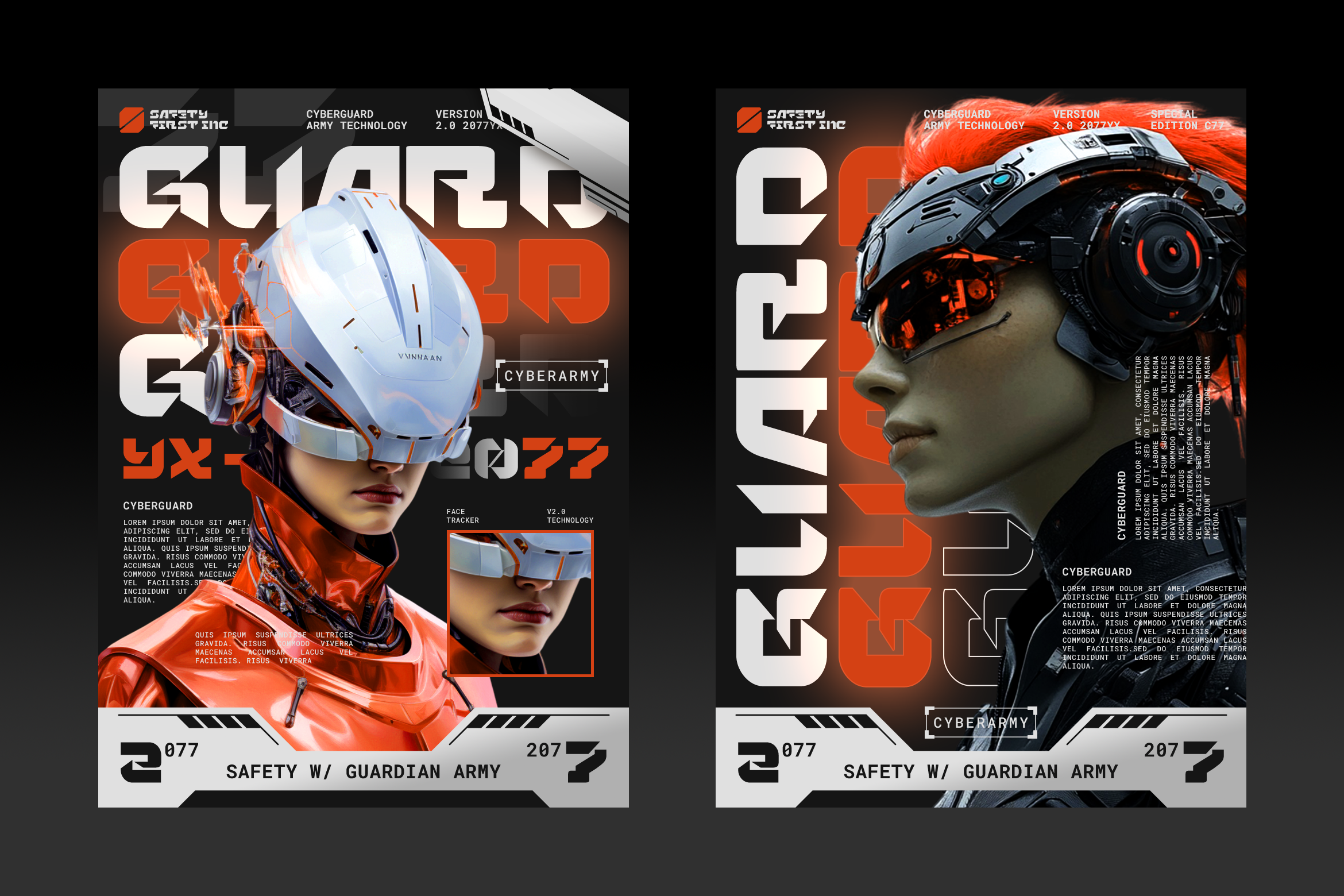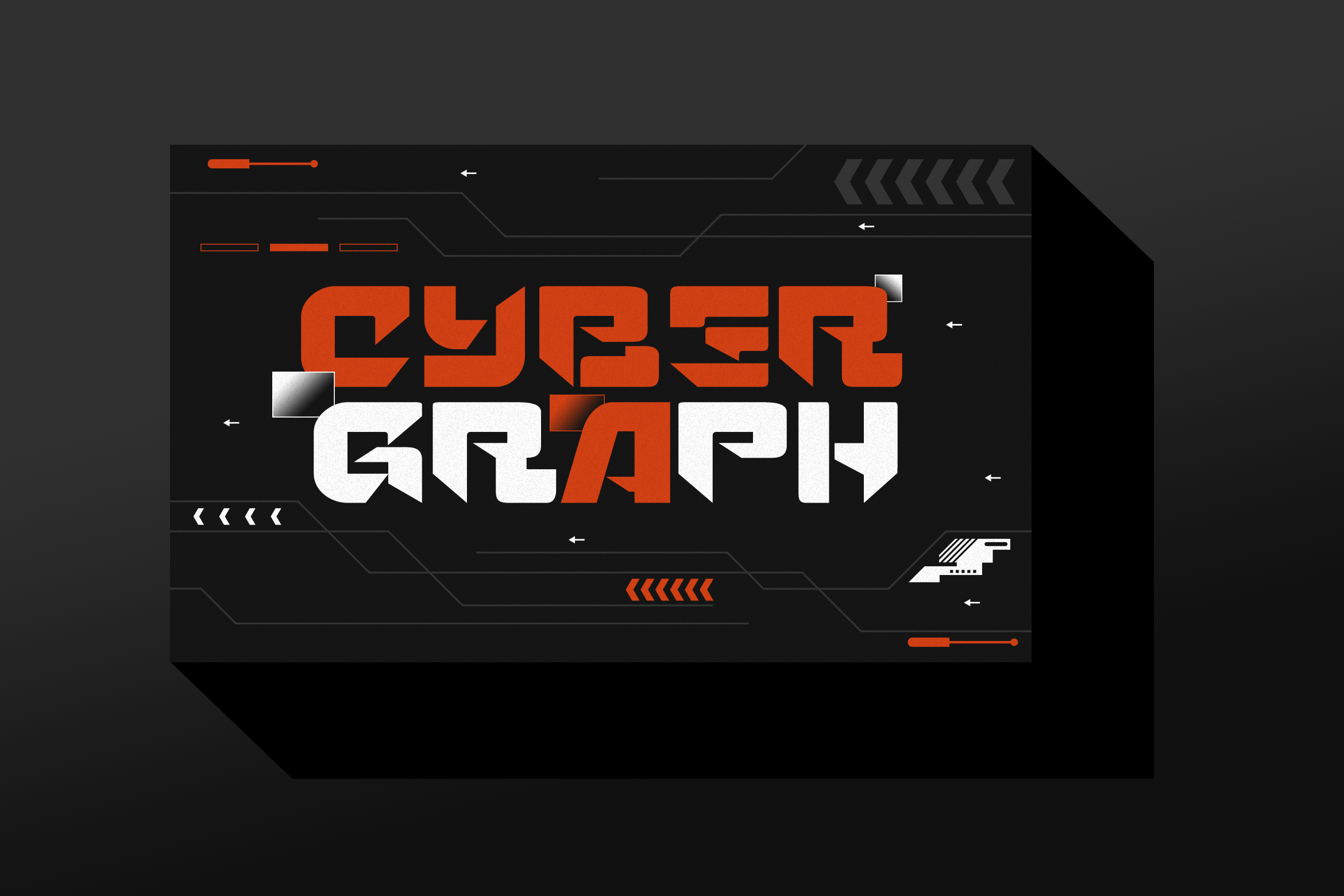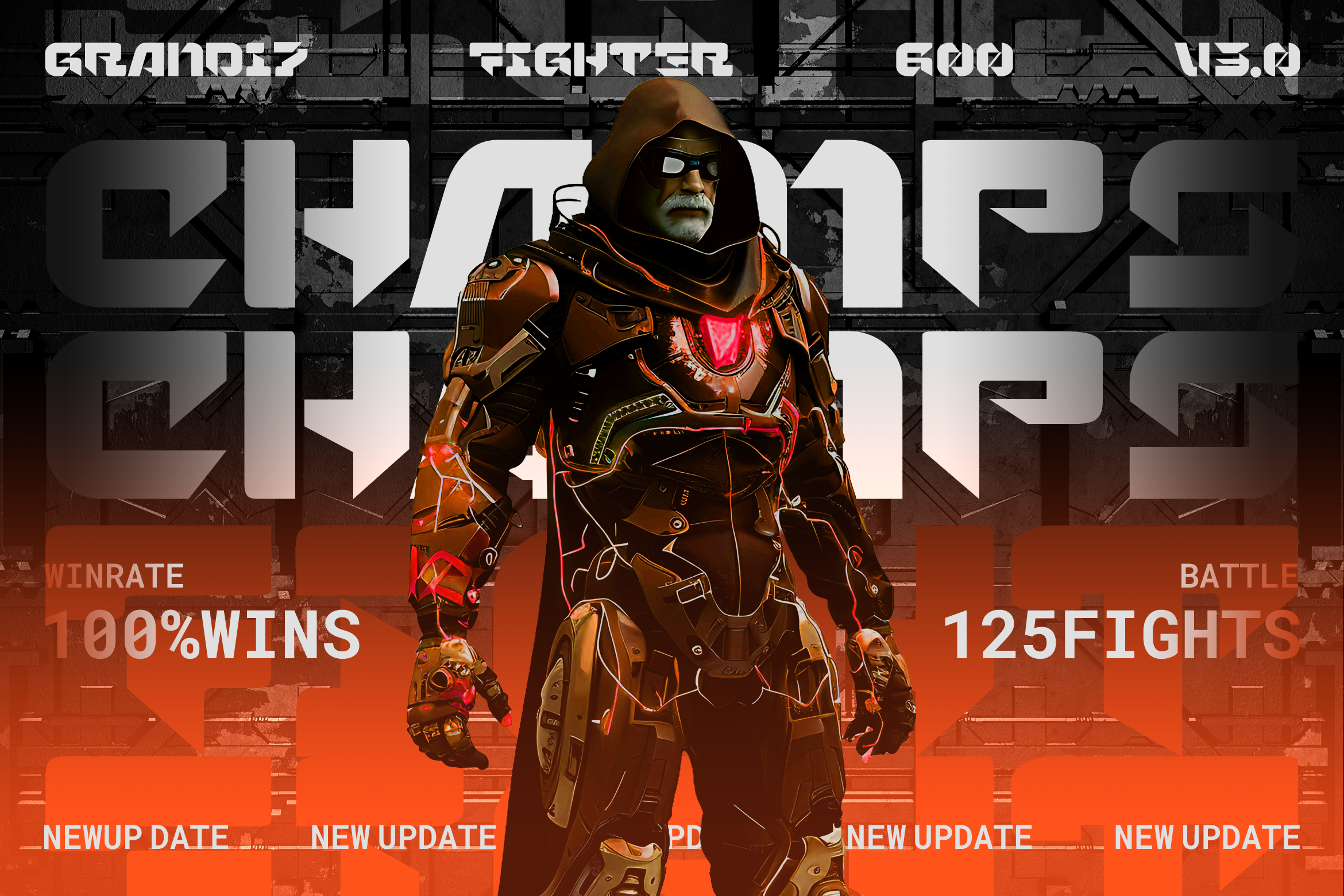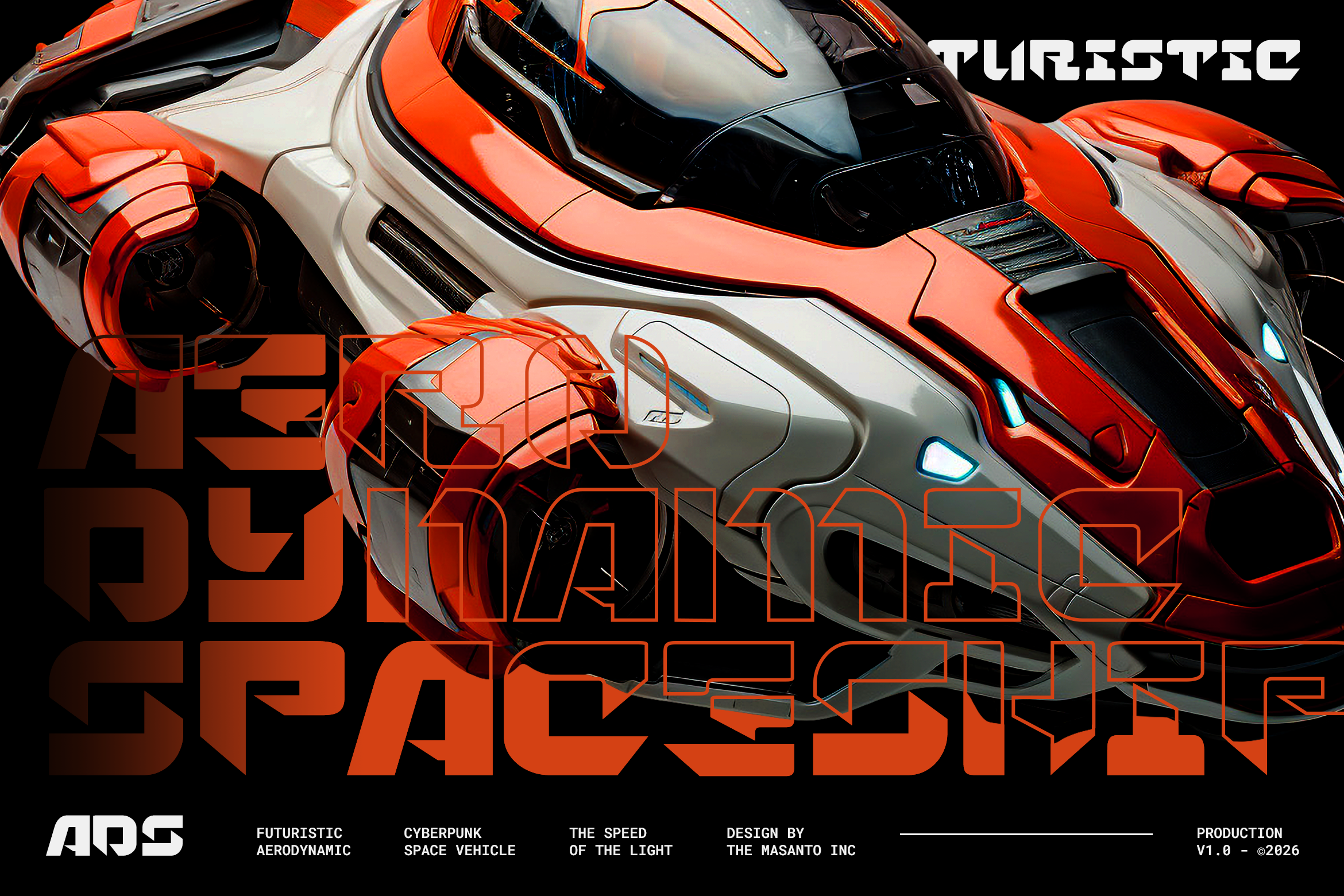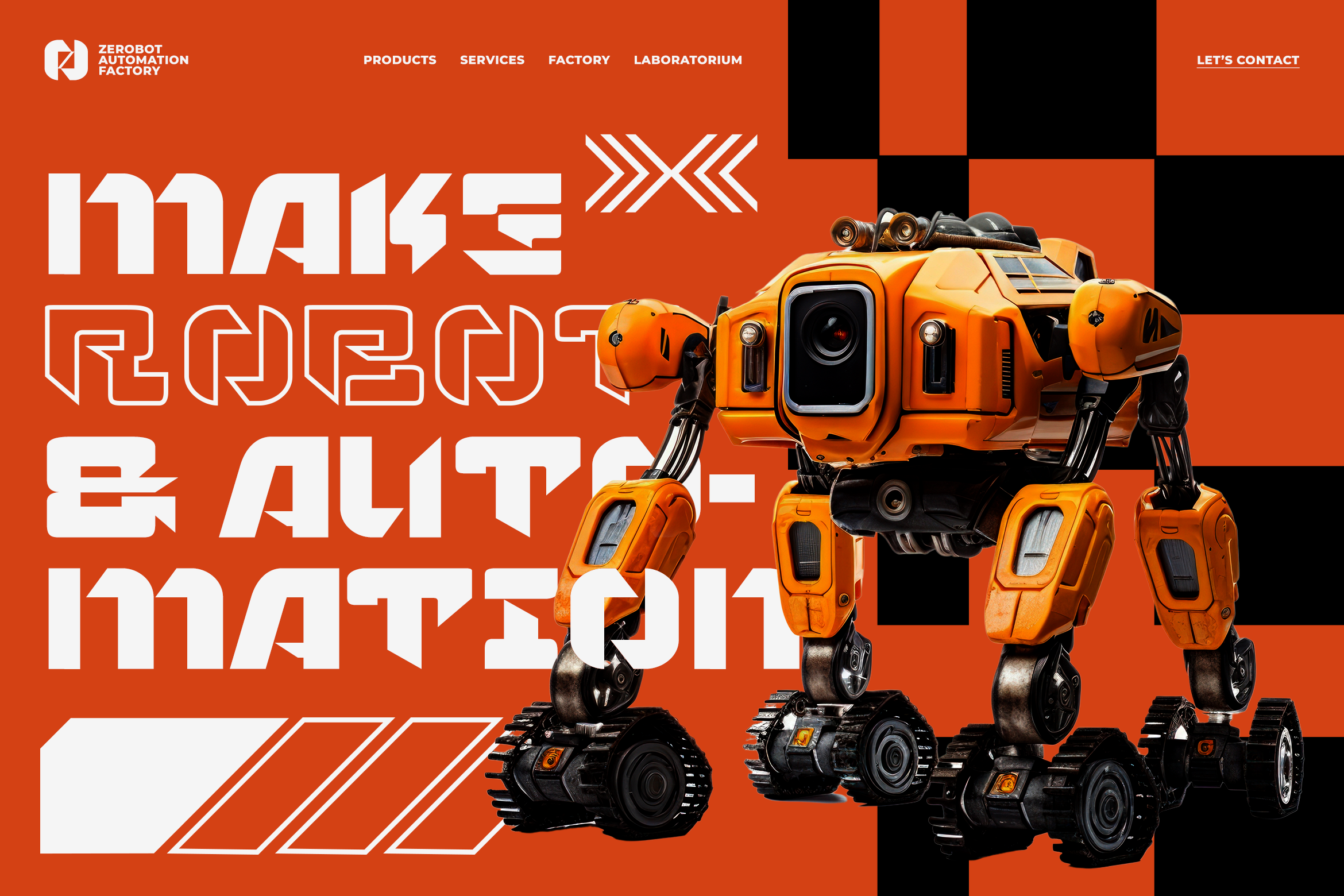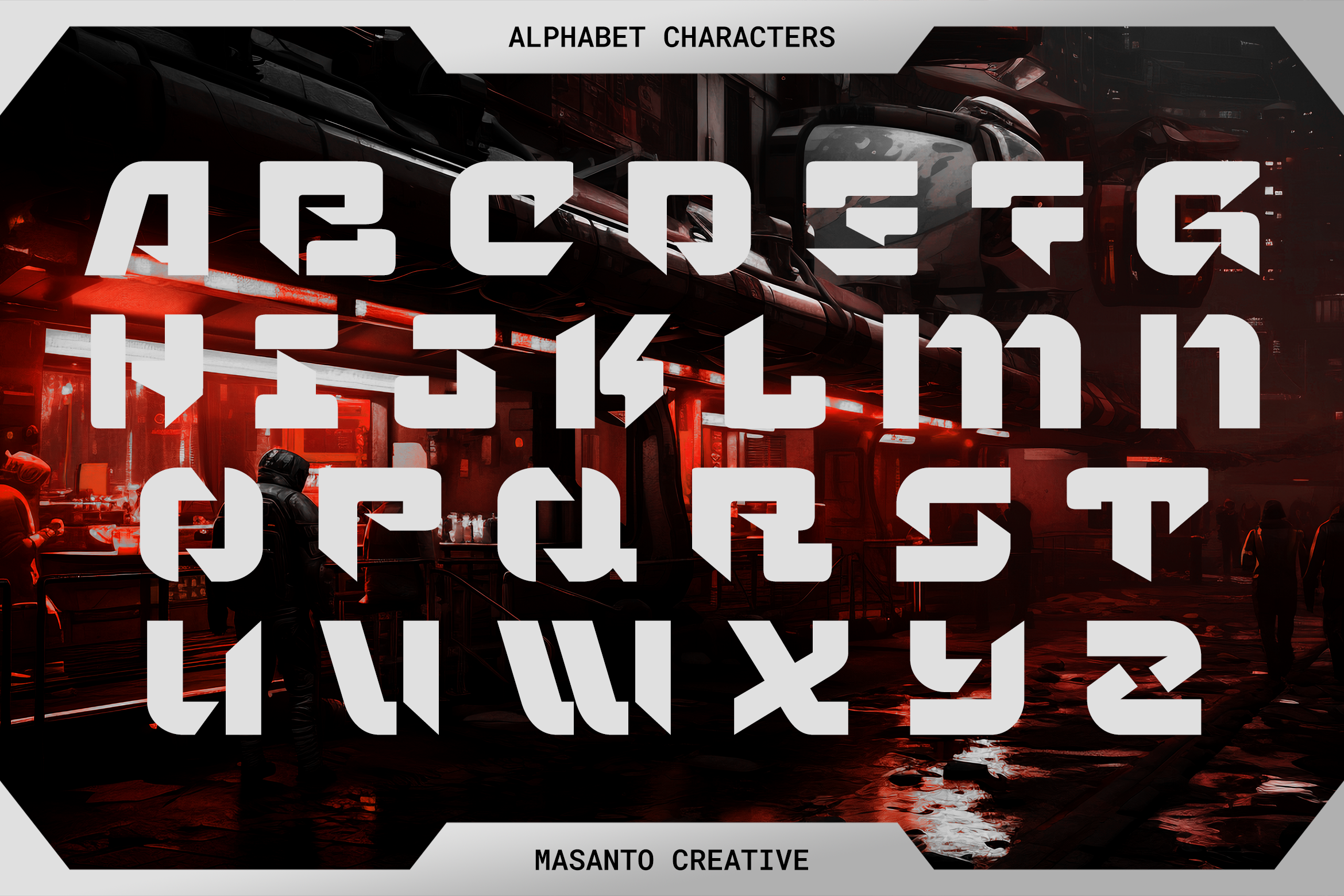
Neuxa – Futuristic Cyberpunk Display Font
About Neuxa – Futuristic Cyberpunk Display Font
Neuxa is a futuristic cyberpunk display font designed with bold industrial shapes, geometric precision, and high-tech sci-fi styling. Inspired by robotics engineering, AI systems, and cyberpunk environments, Neuxa brings a strong mechanical and modern identity to any visual project.
This typeface is perfect for tech branding, gaming titles, sci-fi posters, robot-themed visuals, digital interfaces, automotive technology, space exploration graphics, UI design, and futuristic product packaging.
Its powerful modular forms make your design stand out with a clean yet aggressive aesthetic.
Neuxa includes uppercase letters, numerals, punctuation, multilingual support, and unique stylistic letterforms, making it versatile for both headlines and striking visual layouts.
Features
• Futuristic & Cyberpunk Display Typeface
• Bold Industrial + Geometric Shapes
• Uppercase Characters
• Numbers & Punctuation
• Multilingual Support
• Perfect for Tech, Gaming, Robotics & Sci-Fi Themes
Best For
• Sci-Fi Posters & Movie Titles
• Cyberpunk Artwork
• AI & Robotics Branding
• Gaming UI & Cover Titles
• Web & App Interface Design
• Futuristic Packaging
• Technology Presentations
• Space & Aerospace Graphics
• Ligature & Stylistic alternate